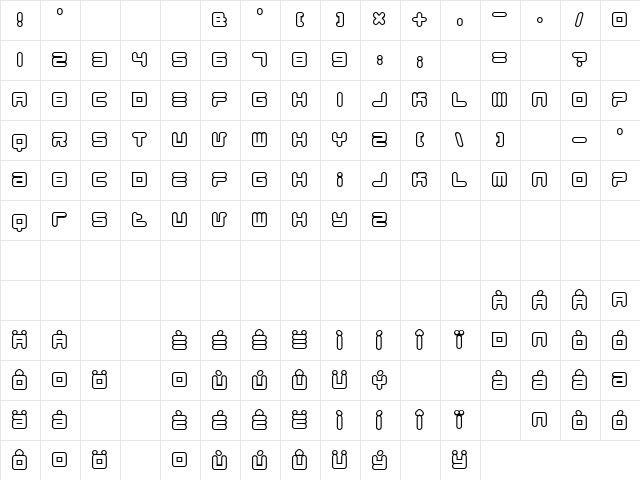
1900.80.5 Regular
Design Context for 1900.80.5 Typeface
1900.80.5 is a composed and adaptable typeface that performs quietly and consistently across a wide range of design contexts.